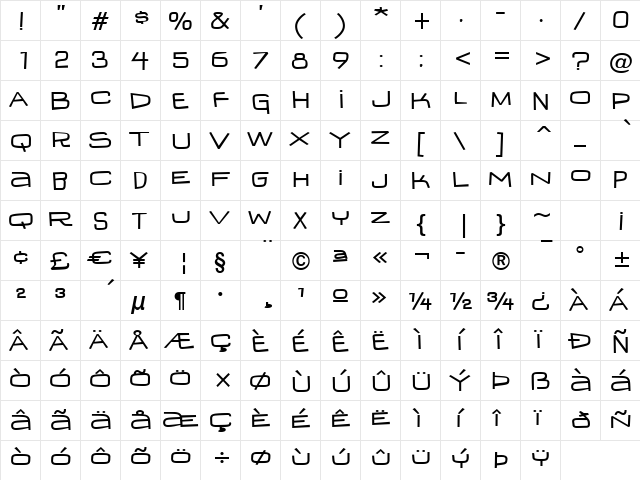
IguanaLover BTN Wide Bd Regular
Design Context for IguanaLover BTN Wide Bd Typeface
IguanaLover BTN Wide Bd takes a measured approach to typography — its balanced proportions and neutral character make it a reliable workhorse for both digital and print work. The heavy weight commands attention and anchors typographic hierarchies.